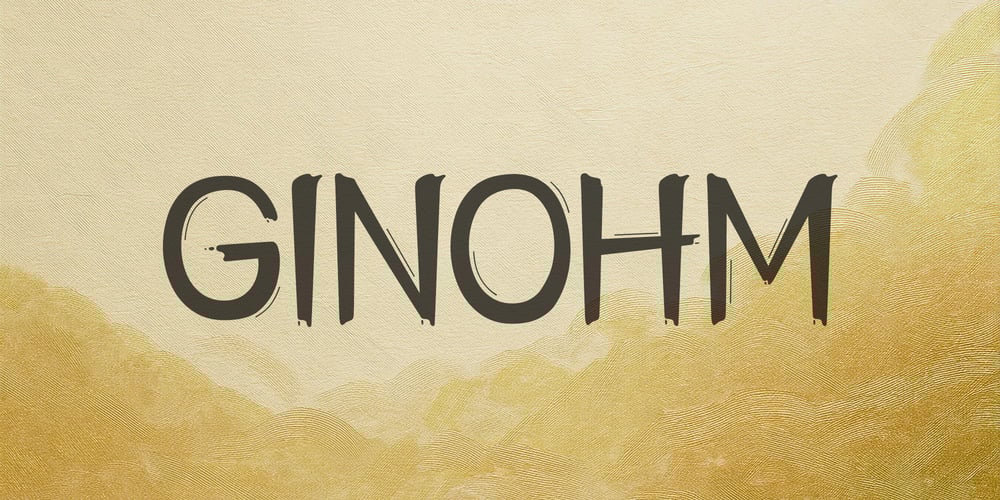
Ginohm Font Family was designed by Taka Ikari and published by Outerend. Ginohm contains 1 styles and family package options. Introducing “Ginohm,” a playful font that captures the essence of hand-written charm. With its flowing ink brush strokes and a hint of Asian calligraphy, this typeface exudes a fun and whimsical vibe. Perfect for creative projects, “Ginohm” adds a personal touch, making every word feel alive and full of character. Ideal for invitations, posters, and children’s materials, it invites joy and spontaneity into any design.